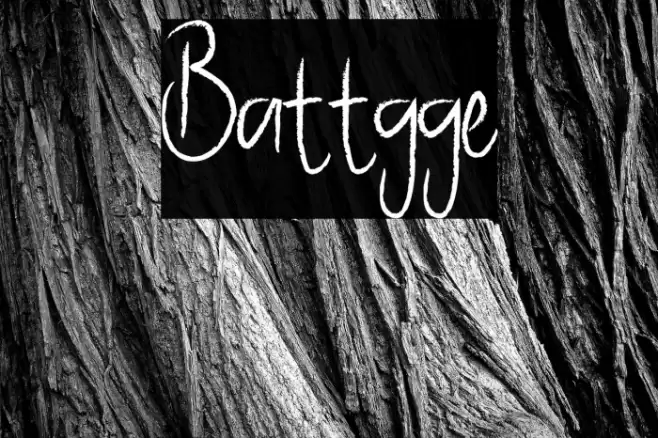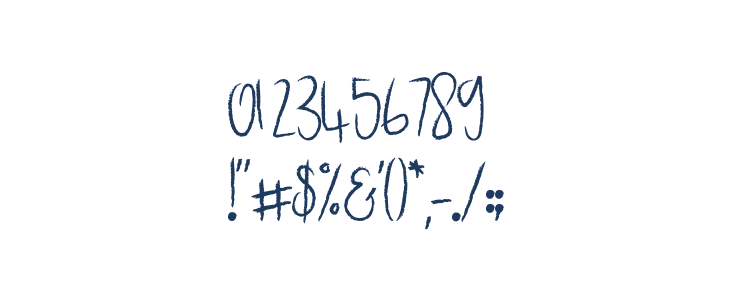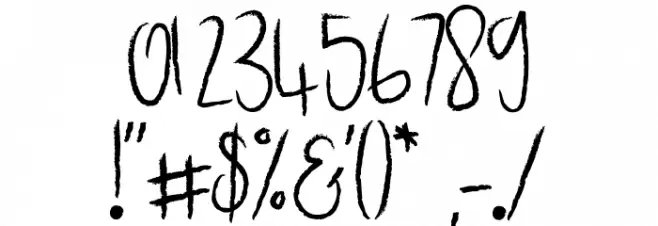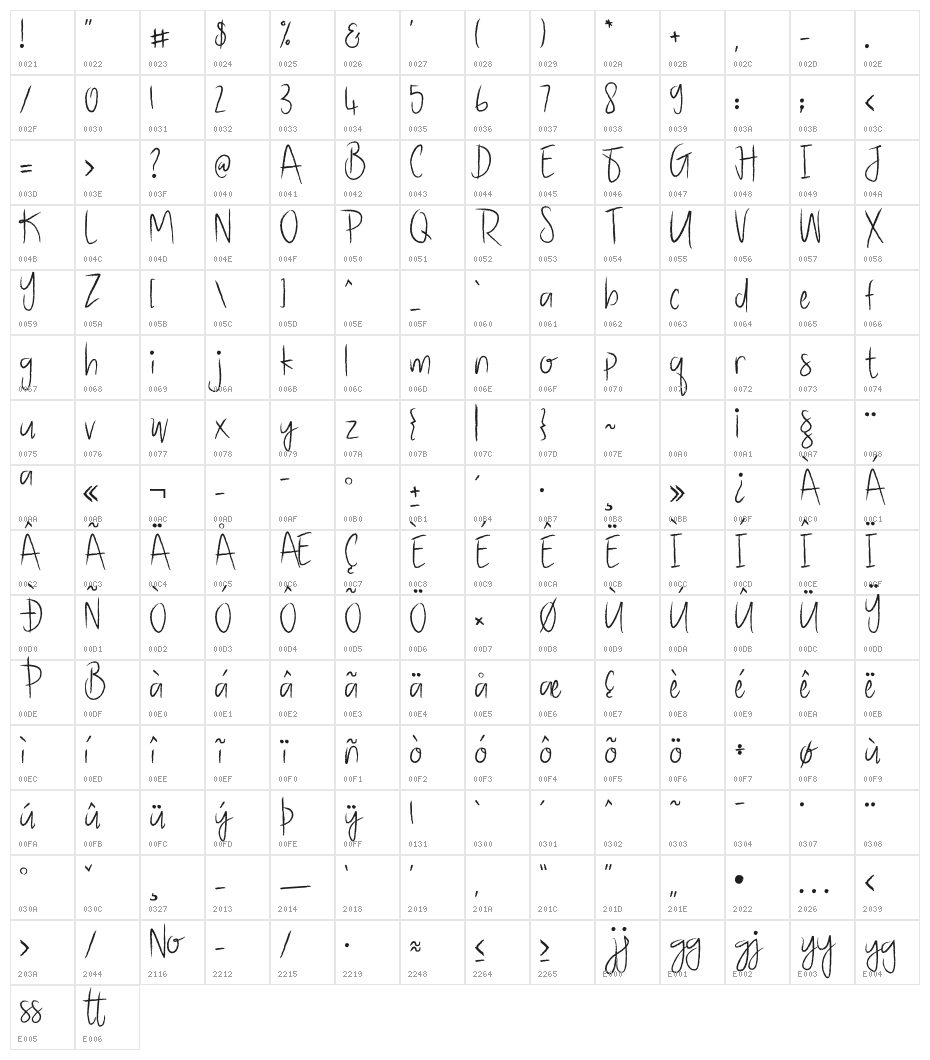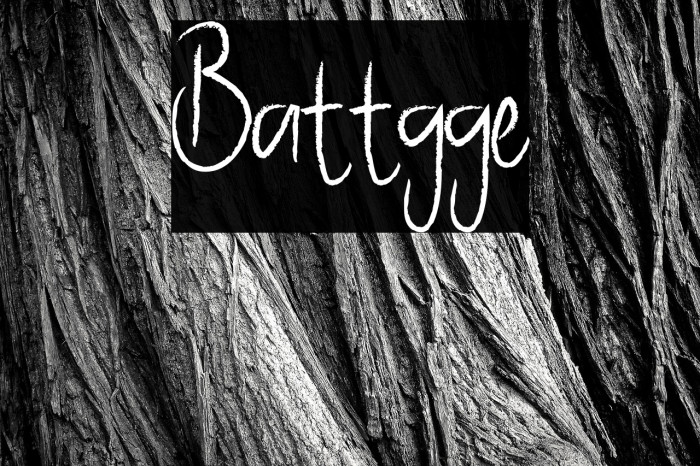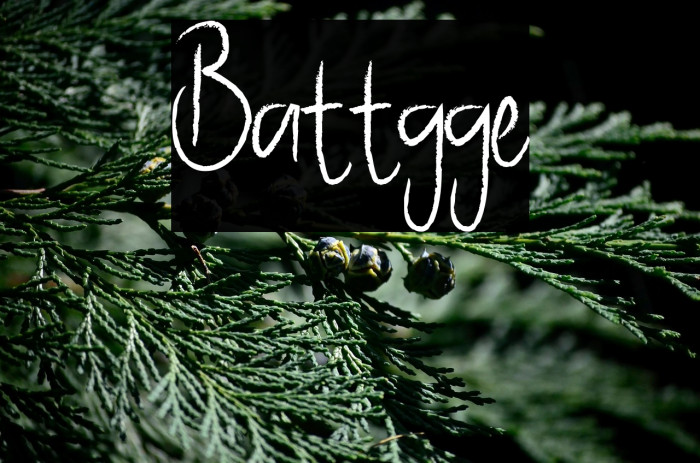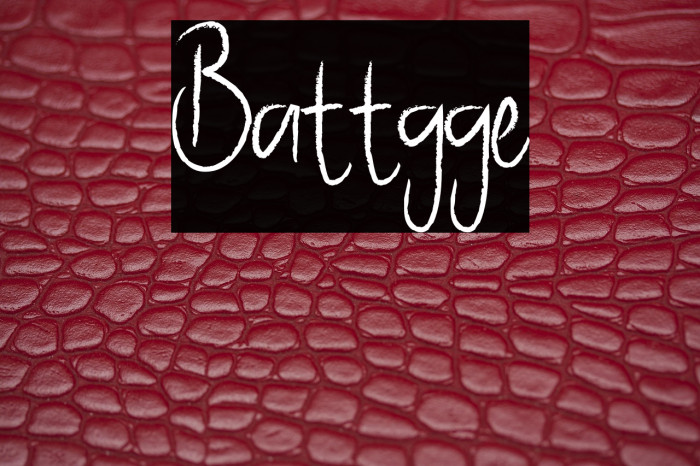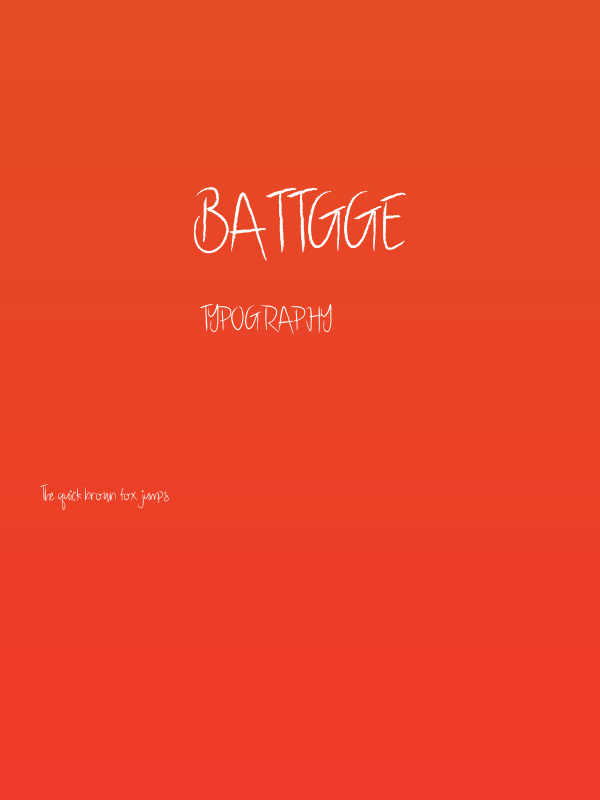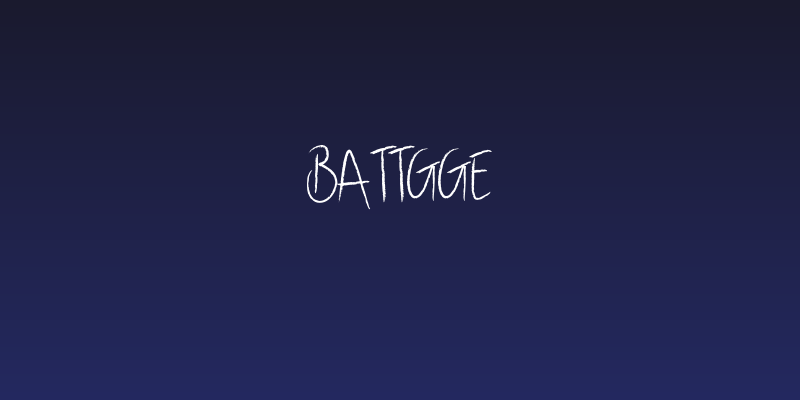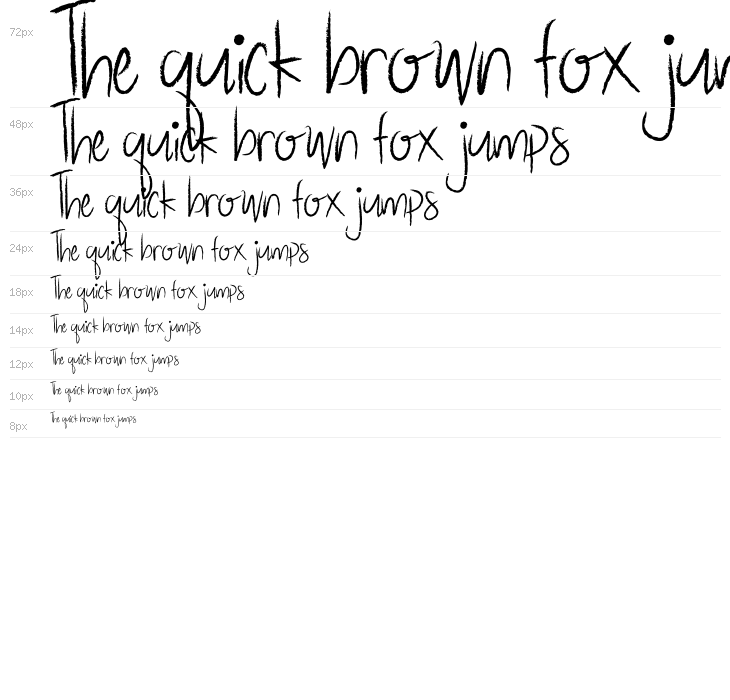
Battgge Font
Battgge Description
This font features a dynamic and expressive handwritten style, characterized by its fluid strokes and organic flow. The letters are slightly irregular, giving it a personal and artistic touch. The uppercase and lowercase letters maintain a consistent style, with a playful yet sophisticated appearance. The numbers and special characters complement the overall design, making it versatile for various creative applications. The strokes vary in thickness, adding a sense of movement and energy to the text.
A dynamic, expressive handwritten font with fluid strokes and an artistic touch from Uncategorized fonts.
- Proposed Projects: Ideal for creative projects such as greeting cards, invitations, personal branding, and artistic posters.
- Overall Style: Artistic
- Use Case: Logos, Headlines, Creative projects